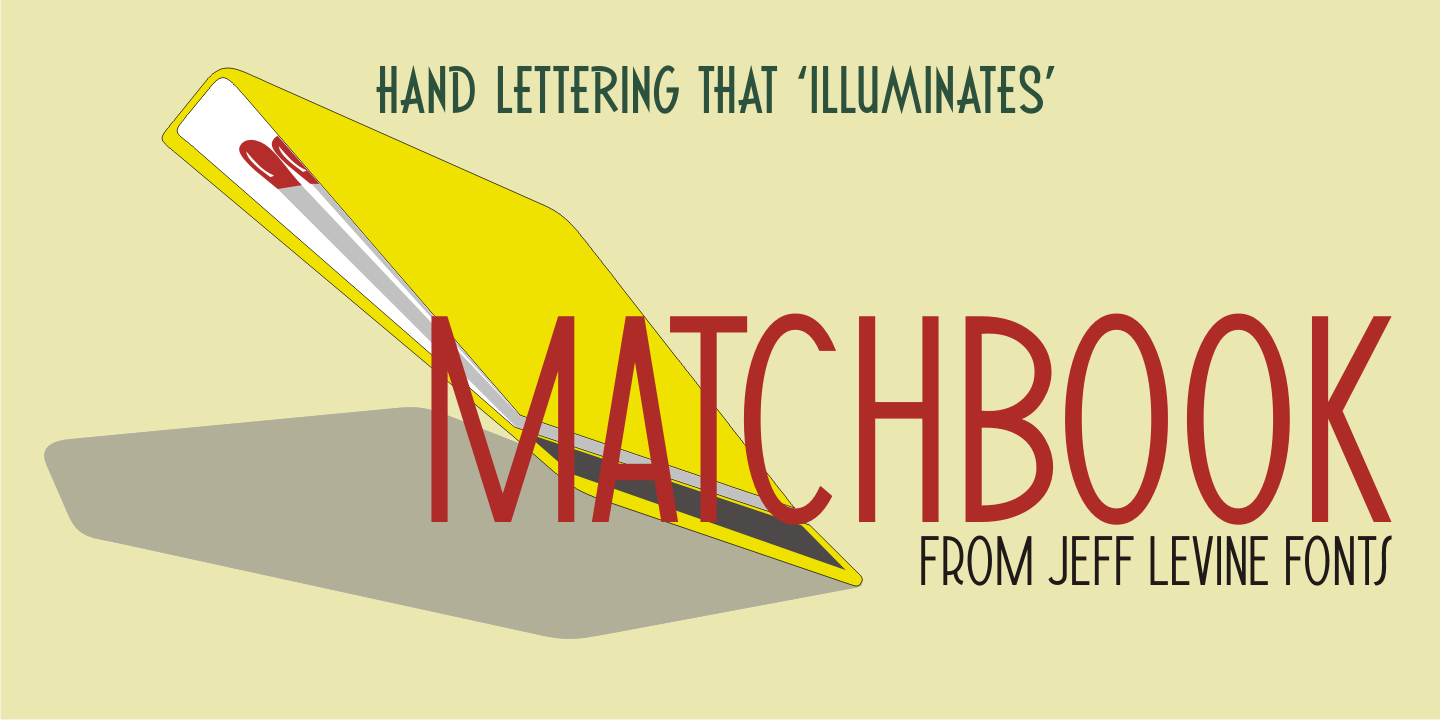
Matchbook JNL is a hand display and art deco font published by Jeff Levine Fonts.
The hand lettering which inspired Matchbook JNL was used on an old matchbook from the Carrousel Restaurant in Miami Beach.